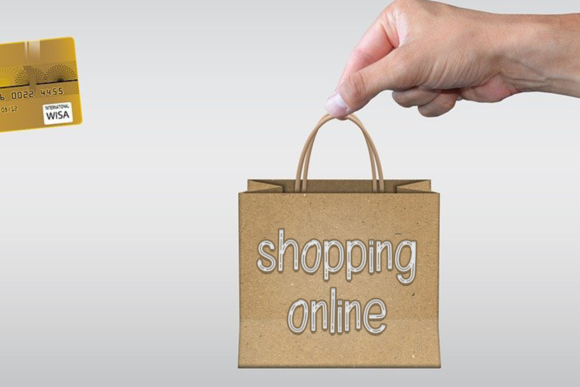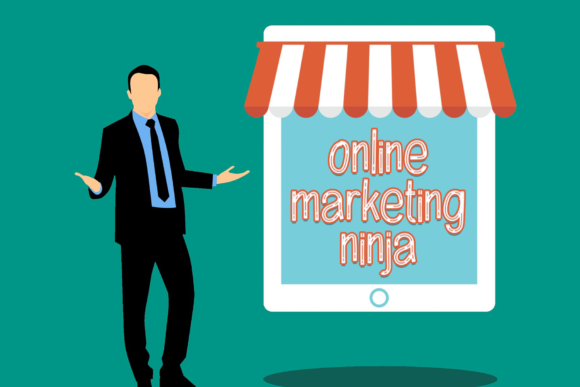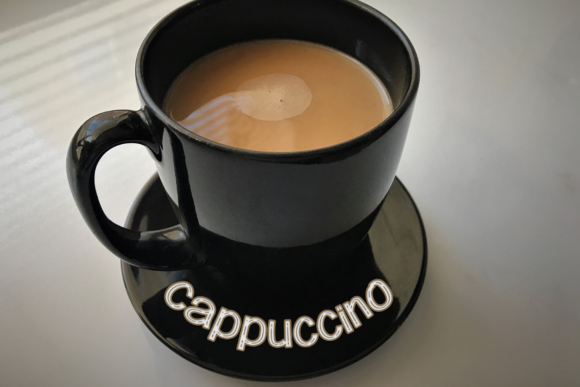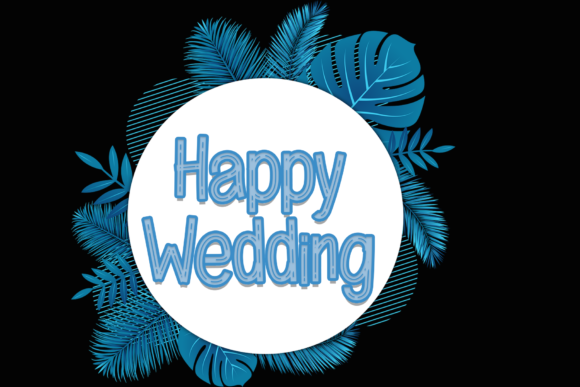
Introduction to Love Struck Font
Love Struck is a fun and simple display font.
Natural and versatile, this font will match a wide range of design ideas Add it confidently to your projects, and you wonโt be disappointed.
Key Features of Love Struck Font
Why Choose Love Struck Font?
Love Struck Font offers exceptional quality and versatility, making it a valuable addition to your design toolkit. Whether you’re creating for personal projects or commercial use, Love Struck Font delivers professional results.